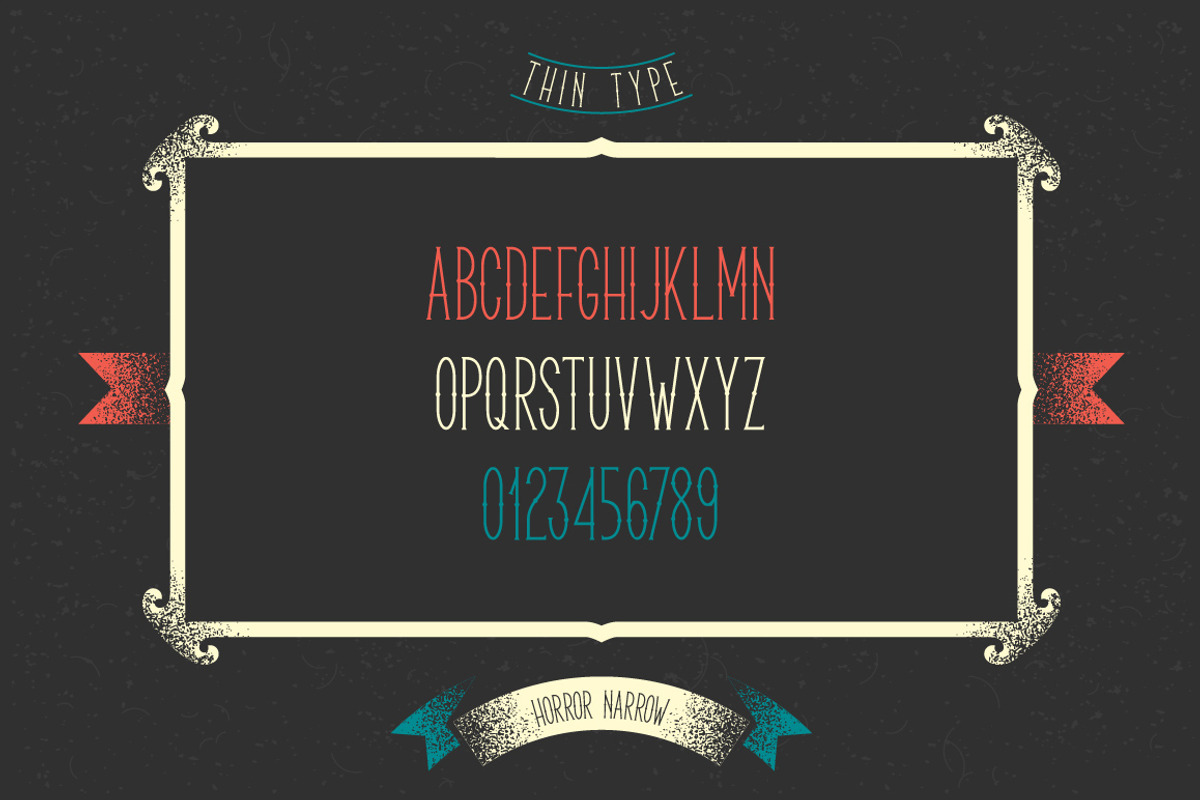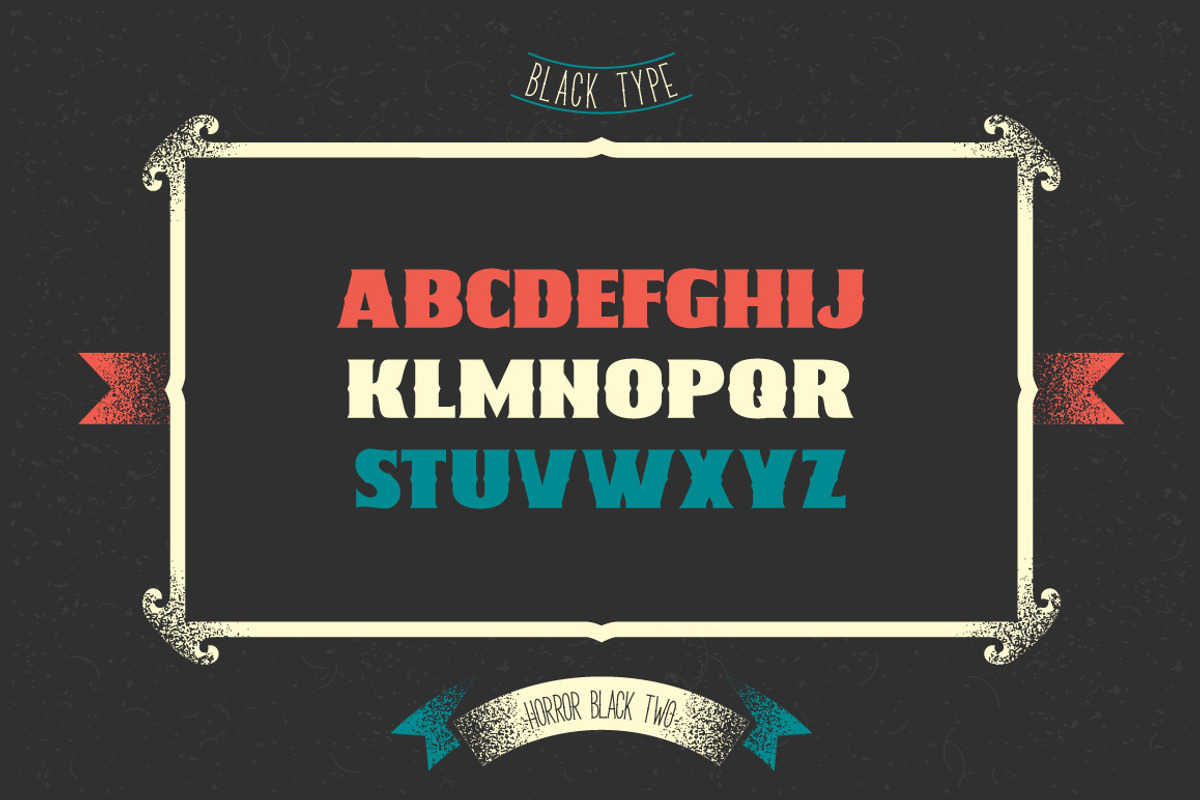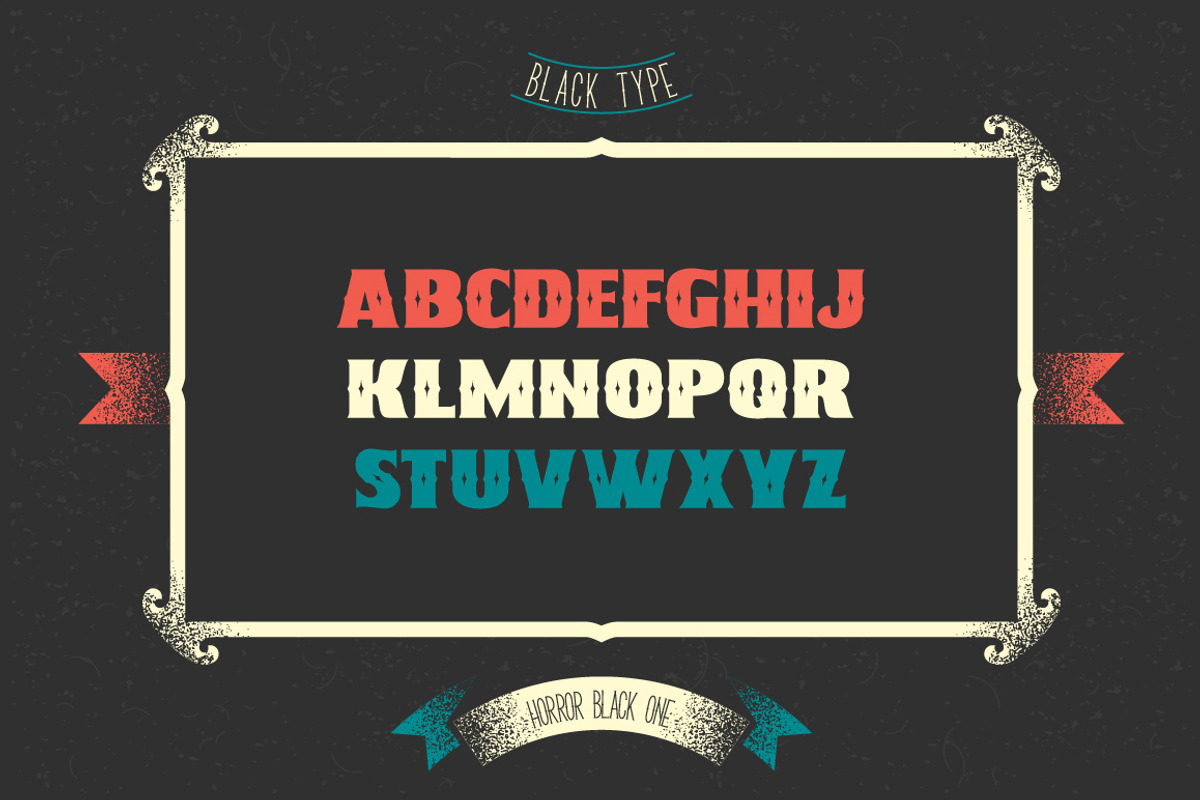
Two heraldic fonts
Two heraldic fonts by Gleb Guralnyk is a font selected for branding, posters, packaging, typography.
- Horror Narrow Regular
- Horror Black One Bold
- Horror Black Two Bold
Why Two heraldic fonts is worth a look
Two heraldic fonts by Gleb Guralnyk fits naturally into Branding, posters, packaging, typography.